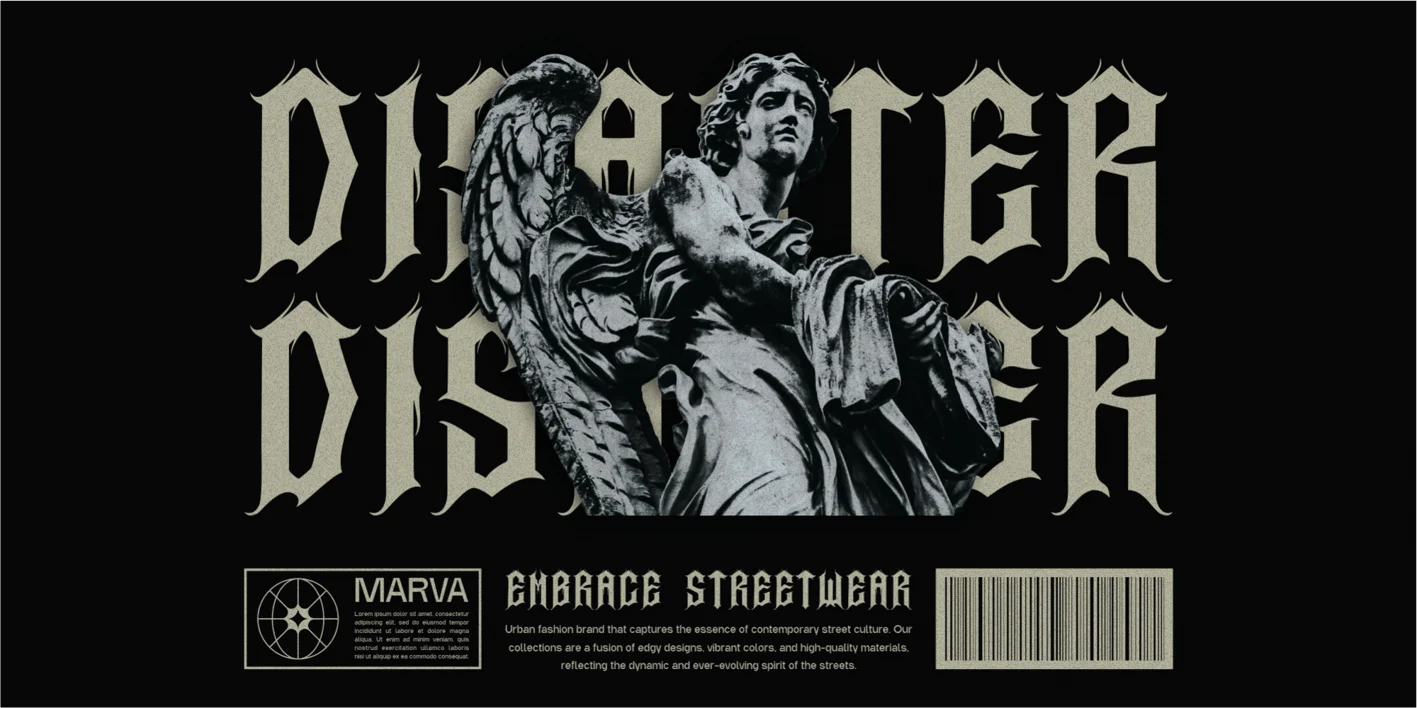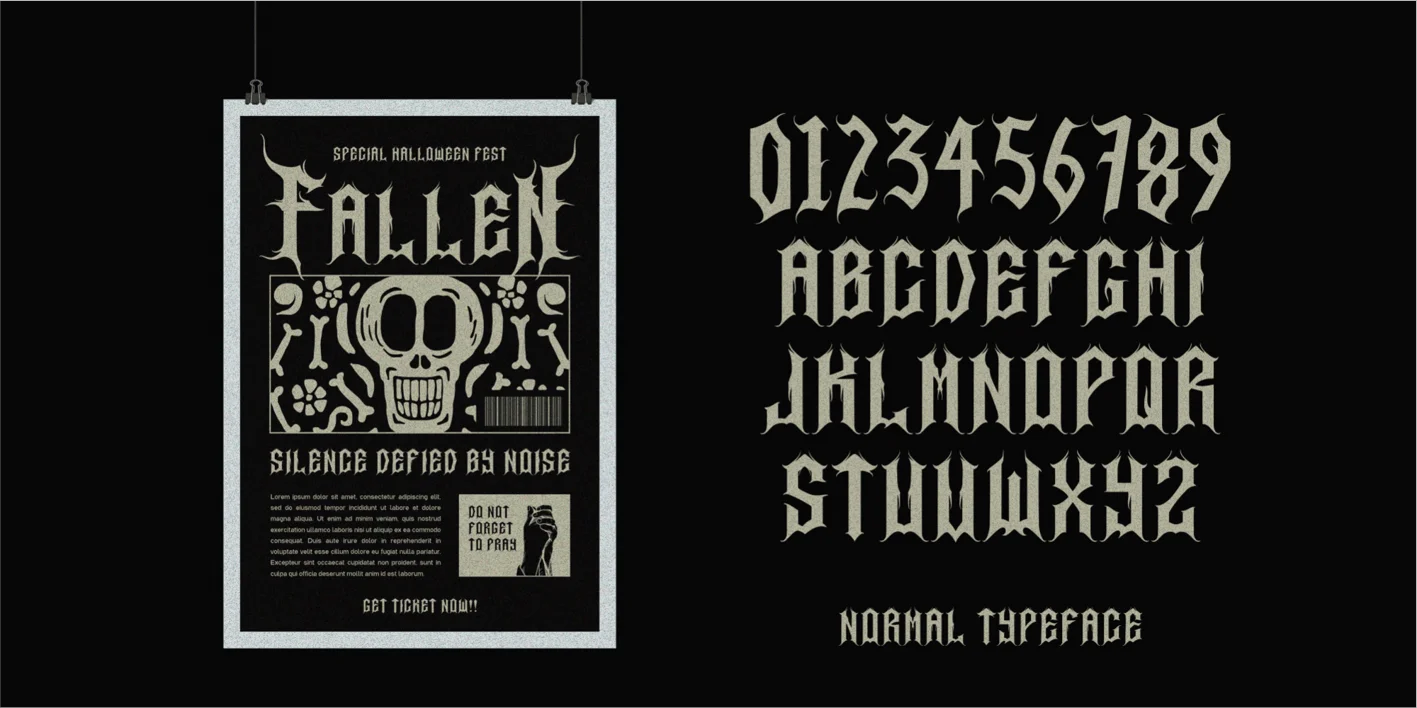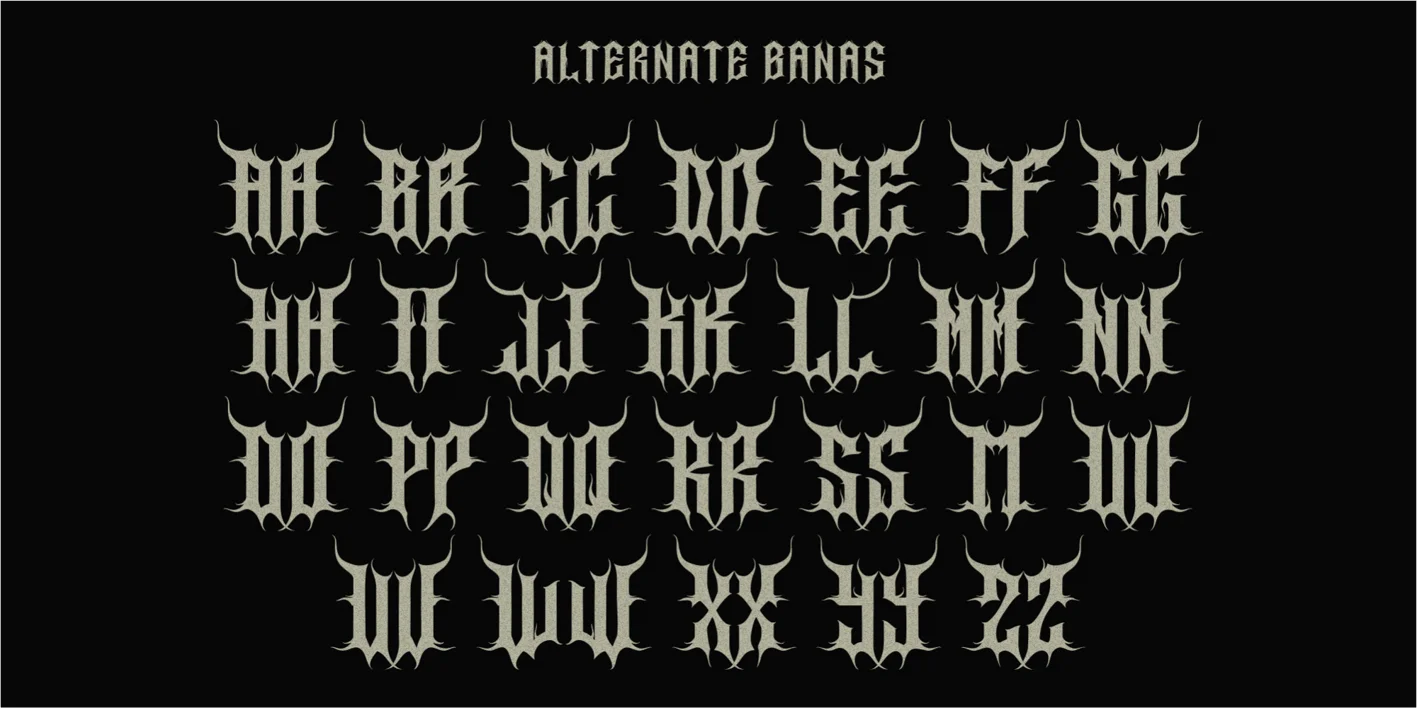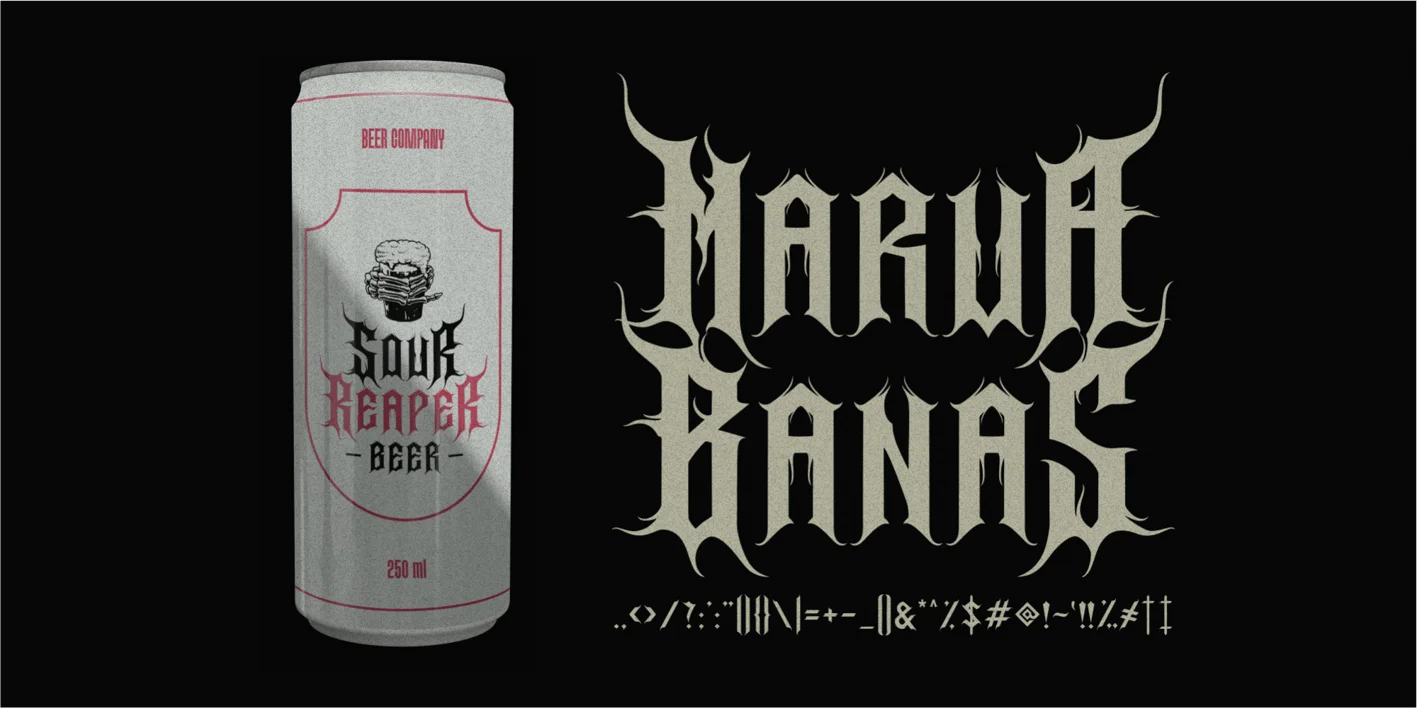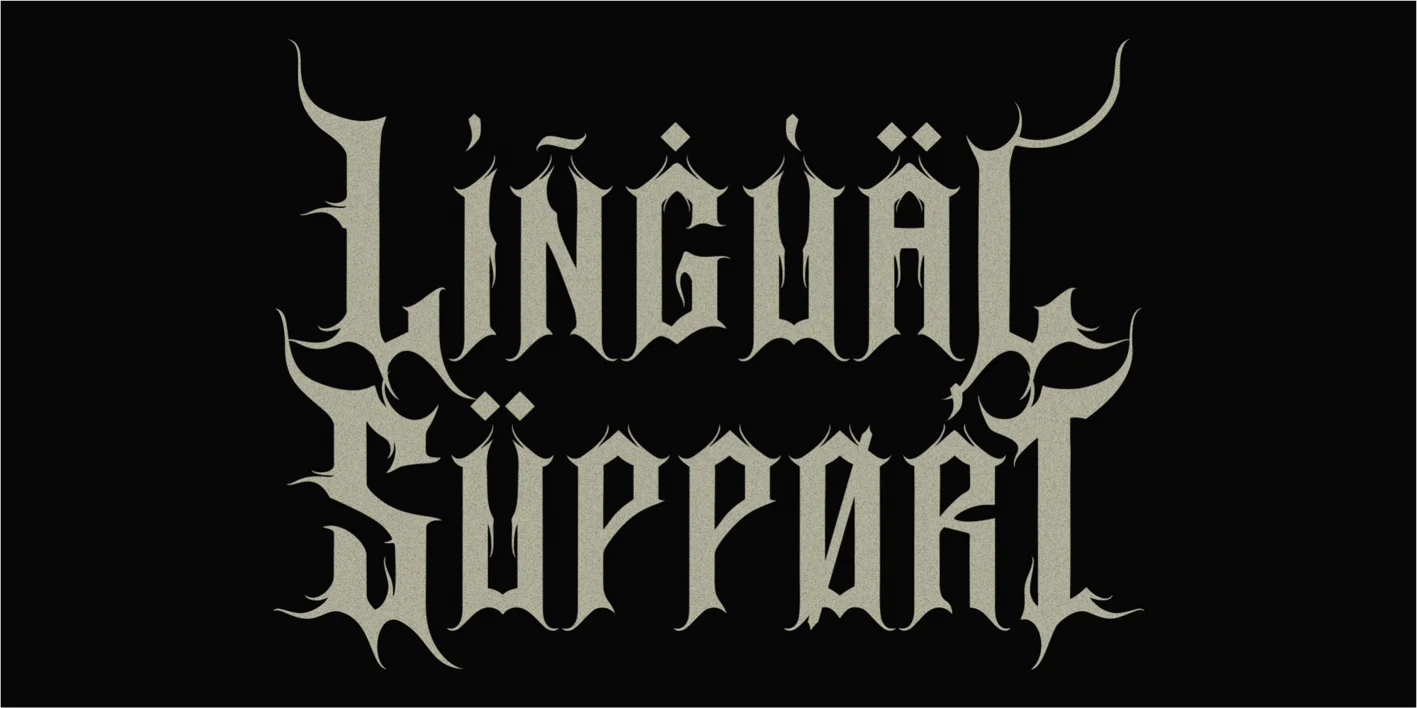
Banas Font
Few typefaces manage to balance visual harmony and precise spacing with genuine day-to-day practicality. Banas is one of them. The typeface brings a versatile sensibility to a broad range of creative disciplines, with versatility across print and screen contexts that holds up whether the work is print-first or screen-first.
In practice, Banas proves particularly effective for annual reports, advertising campaigns, logo design, social media graphics, packaging design. Designers reaching for it find that the type decisions feel resolved rather than laboured — a useful quality when client timelines are tight.
The range of applications extends to environmental graphics, signage systems, editorial layouts, web design. That breadth is deliberate: the proportions and spacing were stress-tested across a wide range of mock briefs before the typeface was finalised.
Banas sits comfortably alongside both classic and contemporary typefaces in multi-font hierarchies. It takes direction rather than competing for attention — a quality that experienced designers know is harder to find than it appears.
Independent studios handling packaging and editorial work find Banas a reliable choice for projects that demand both personality and restraint. The design avoids the self-conscious quirkiness that dates quickly, settling instead for considered distinctiveness that holds up over time.